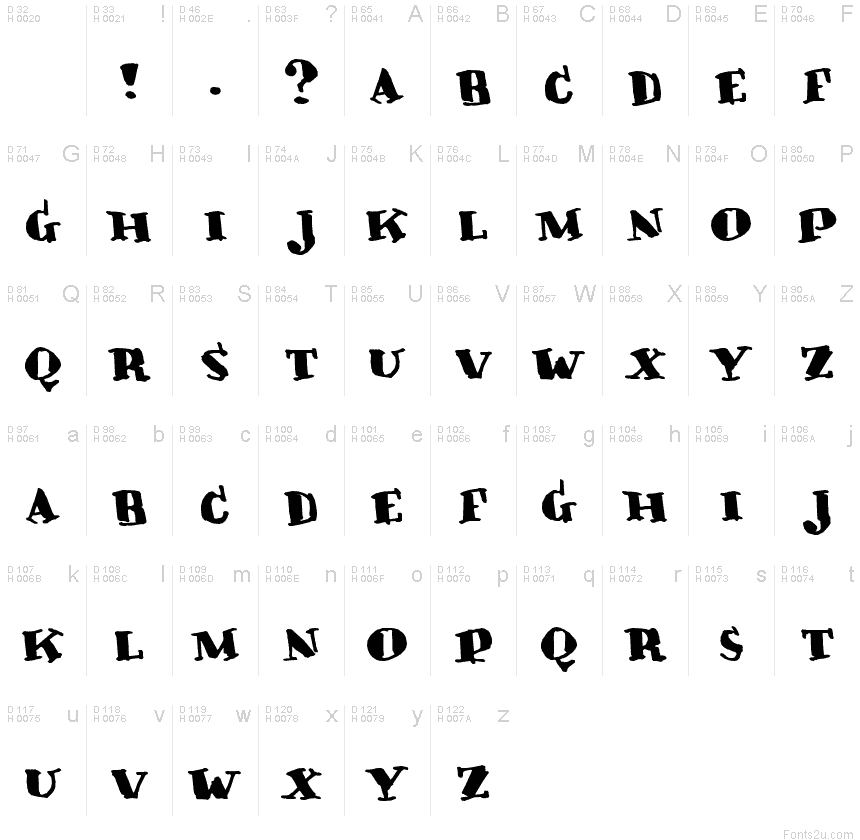
Crunky
Crunky font by Patrick Broderick of Rotodesign is a free, chunky hand-drawn typeface with a loose, wobbly rhythm that feels loud and a little unruly. The thick, blotted strokes and tilted caps give it a rough, ink-splattered energy that jumps off the page, making short words feel like shouted slogans.
This free font is ideal for gig posters, underground zines, skate or streetwear graphics, comic titles, game logos, bold stickers, and noisy social media headers. Crunky works best big and bold, with plenty of space to show off its irregular edges; pair it with a clean sans serif in small sizes to keep longer text readable while the logo or headline does the shouting.